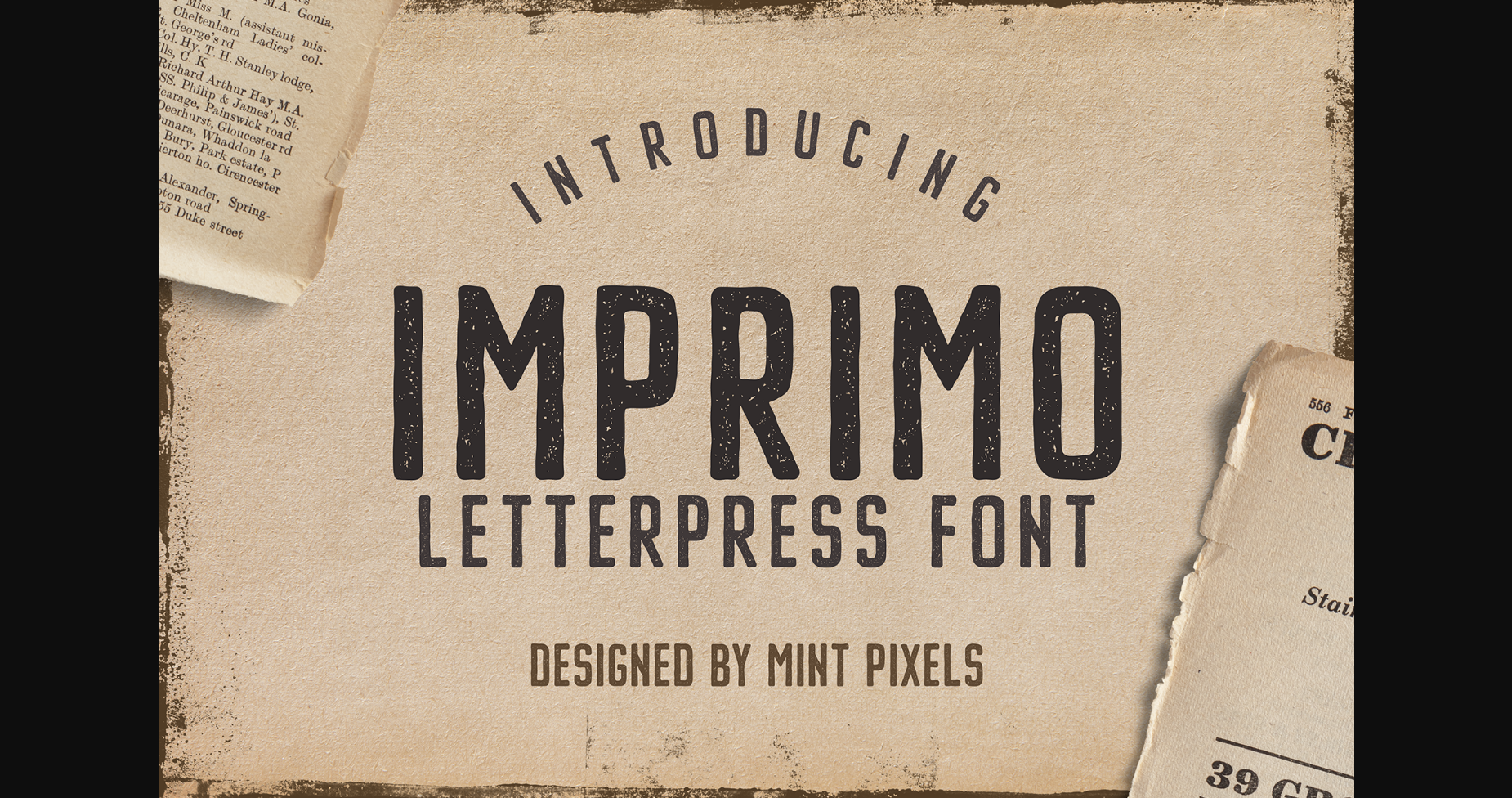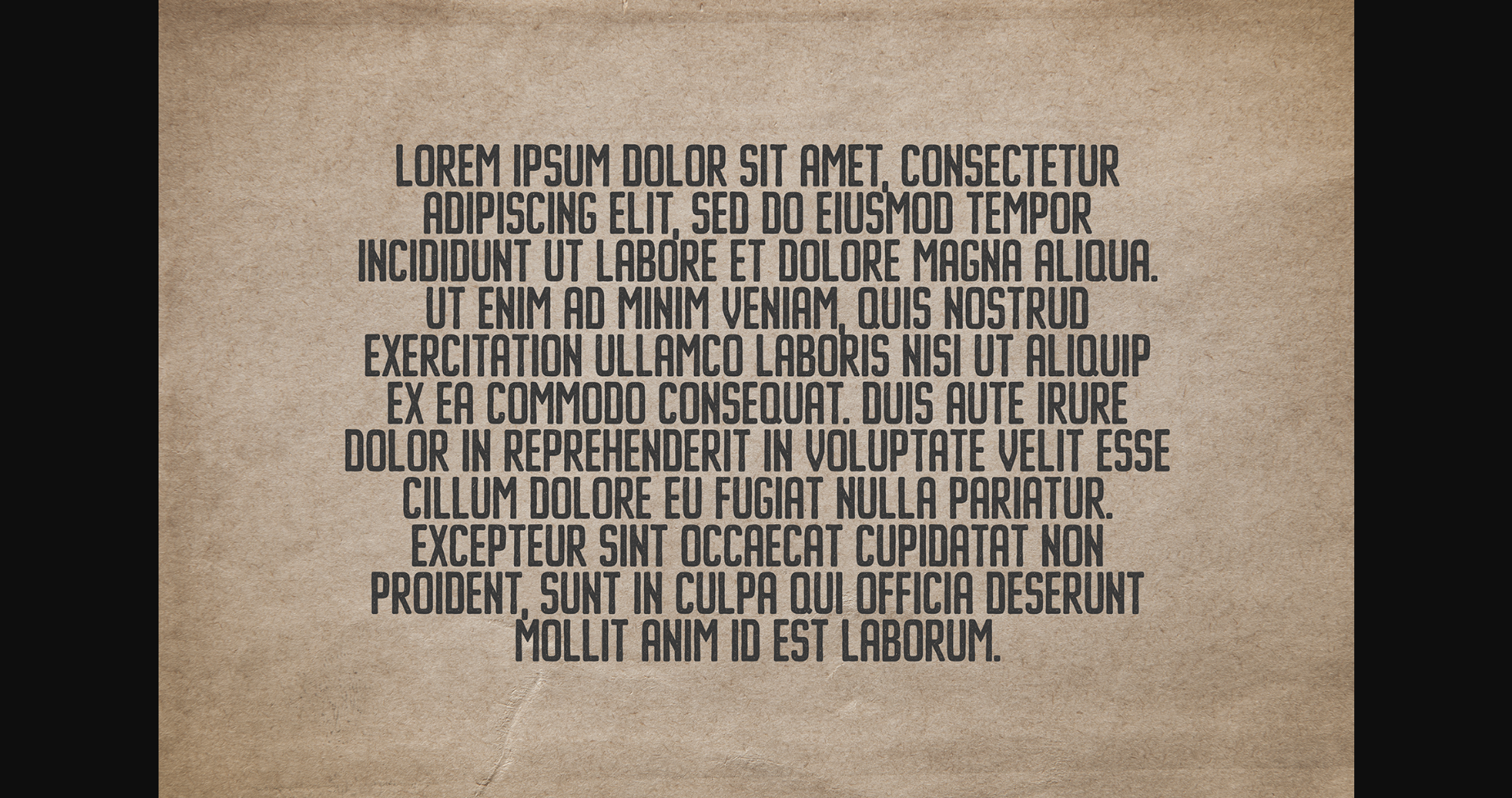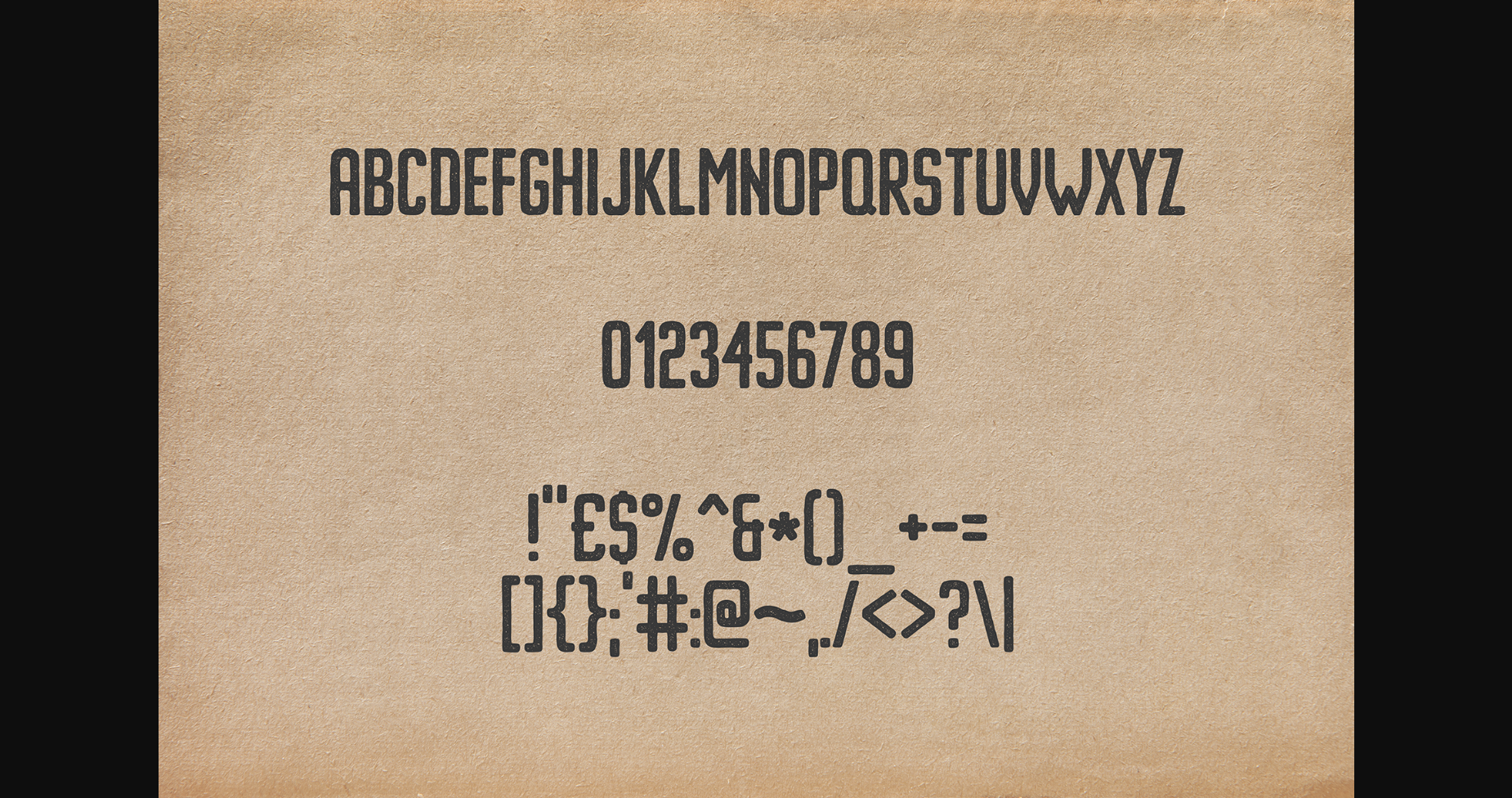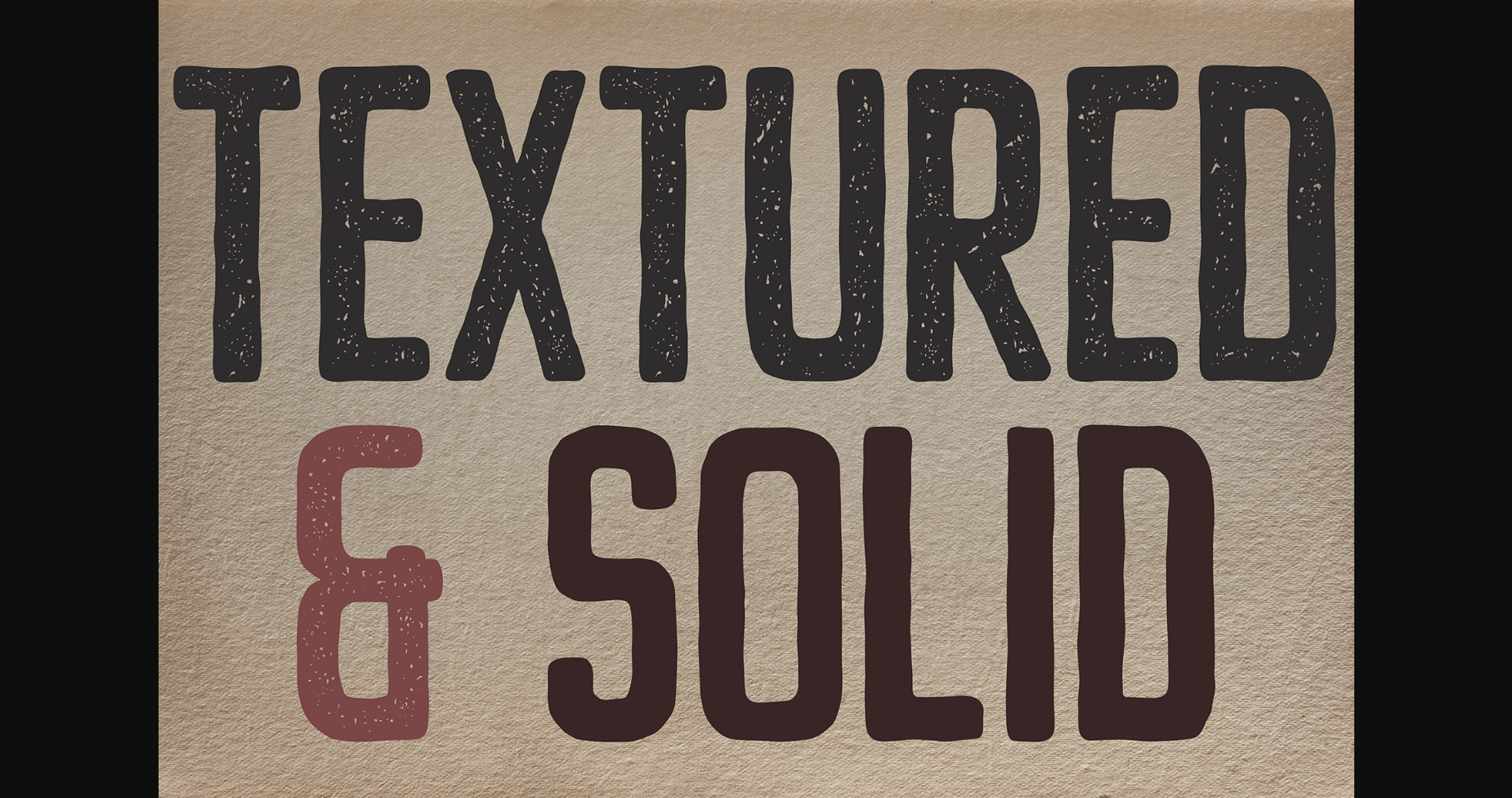
Imprimo Letterpress Font
About Imprimo Letterpress Font
Imprimo is an uppercase sans-serif letterpress-type font. It is a vintage-looking typeface suitable for titling, banners, or other bold design ideas.